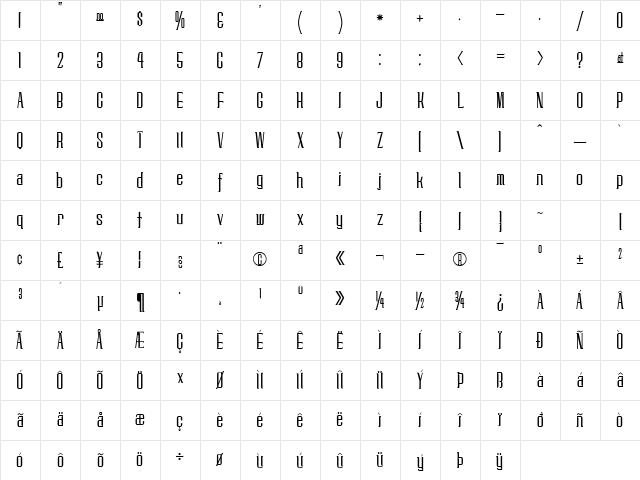
Technique has a distinctly futuristic character, with geometric precision and clean angles that feel at home in technology, gaming, and sci-fi contexts. Its slender proportions lend an understated elegance to any composition.
Pro Tip: Try Technique with generous letter-spacing in UI labels and navigation - the geometric forms benefit from room to breathe.